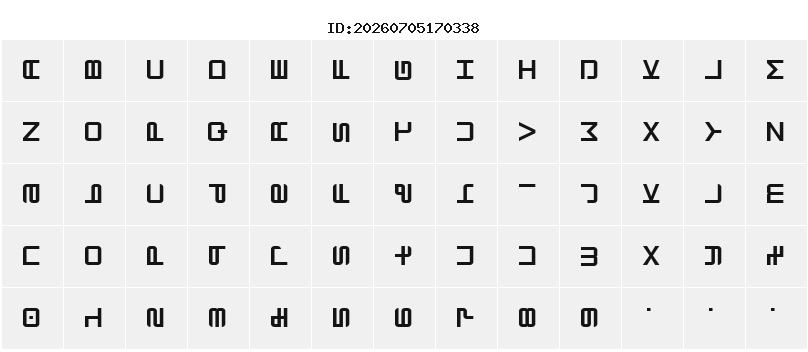
DomingoEF Preview
• Font Name: DomingoEF
• Full Font Name: DomingoEF-Bold
• PostScript Name: DomingoEF-Bold
About DomingoEF.ttf
DomingoEF.ttf is a modern, elegant sans-serif font designed for ultimate readability and visual harmony. Perfect for branding, headlines, web design, and print materials.